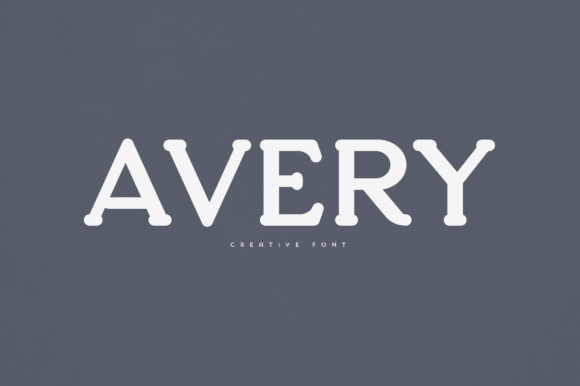
The Designer’s Delight: Uncovering the Elegance of Avery Font
I’ll never forget the time I was working on a branding project for a high-end home goods client. I had spent hours agonizing over the perfect logo design, but something was missing. The typography just wasn’t quite right. I scoured the internet for the perfect font, but nothing seemed to fit the bill. That was until I stumbled upon Avery Font. ✨
It was love at first sight! The elegant lines, the versatile style, and the sheer sophistication of Avery Font won me over. I knew immediately that it was the perfect fit for my client’s brand. And as I began to experiment with it, I realized that Avery Font was more than just a pretty face – it was a game-changer for any design project.
What I Love About Avery Font
- ✨ Elegant and sophisticated design that’s perfect for high-end branding
- ✅ Versatile style that works well for logos, headlines, and body text
- 🔥 Excellent for creating visually appealing text overlays on background images
- 💡 Supports OpenType features, glyphs, and stylistic alternates for added creativity
While Avery Font is an exceptional font, it’s not without its quirks. 🤔 For example:
- ⚠️ Some users may find the font a bit too slender for certain design applications
- ⚠️ Limited availability of condensed or extended versions of the font
The Story Behind Avery Font
Avery Font was designed by a team of typographers who wanted to create a font that would evoke the elegance and sophistication of high-end design. Inspired by classic serif fonts, Avery Font combines traditional techniques with modern sensibilities to create a truly unique and versatile font.
Q: What makes Avery Font so special?
A: Avery Font’s unique blend of elegance, sophistication, and versatility makes it a standout choice for designers.
Q: Is Avery Font suitable for body text?
A: While Avery Font is elegant and refined, it may not be the best choice for long blocks of body text. However, it’s perfect for headlines, titles, and short paragraphs.